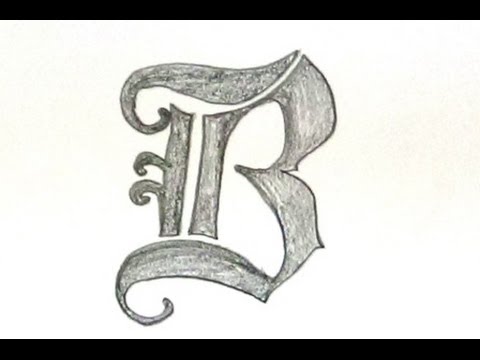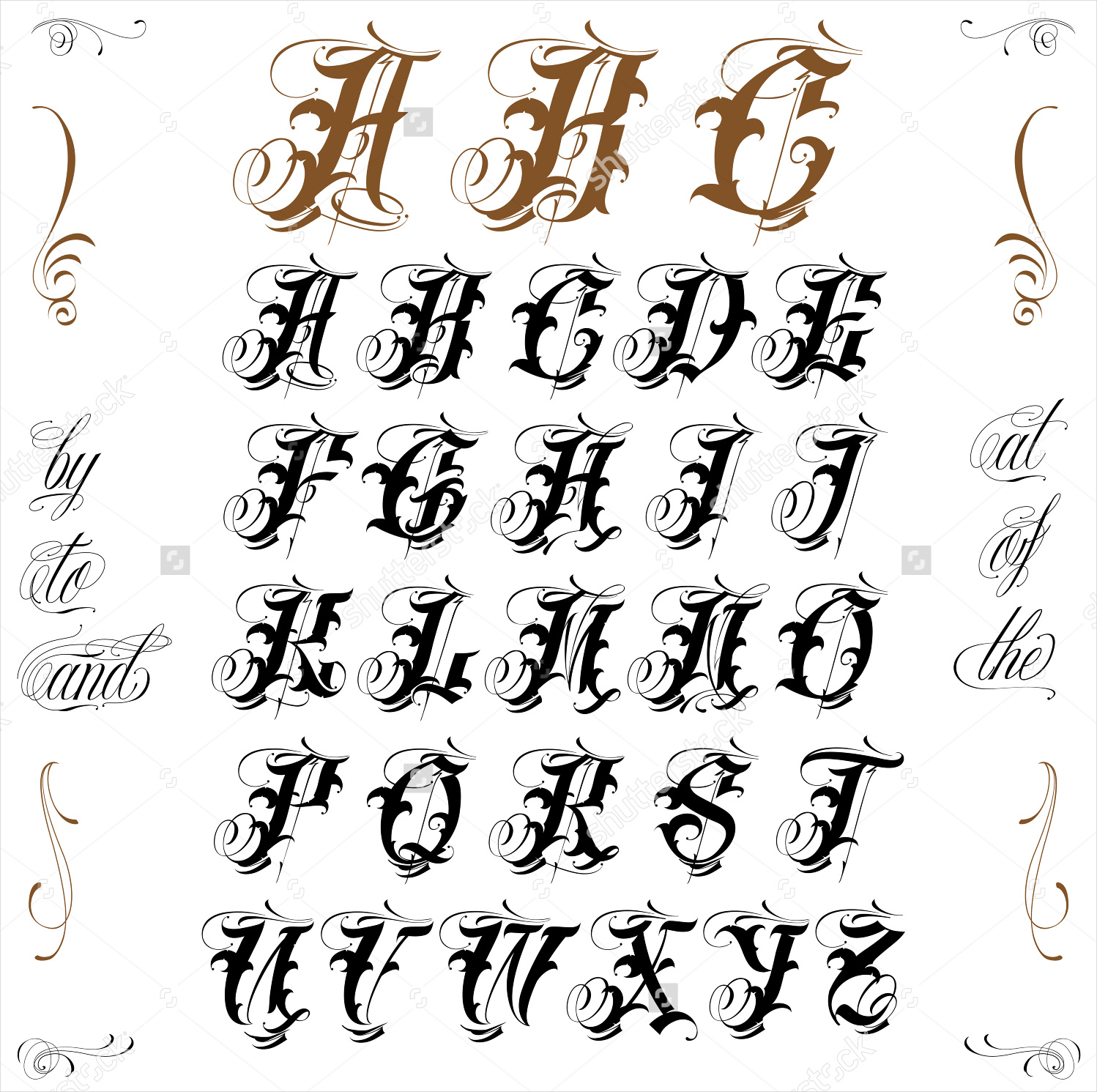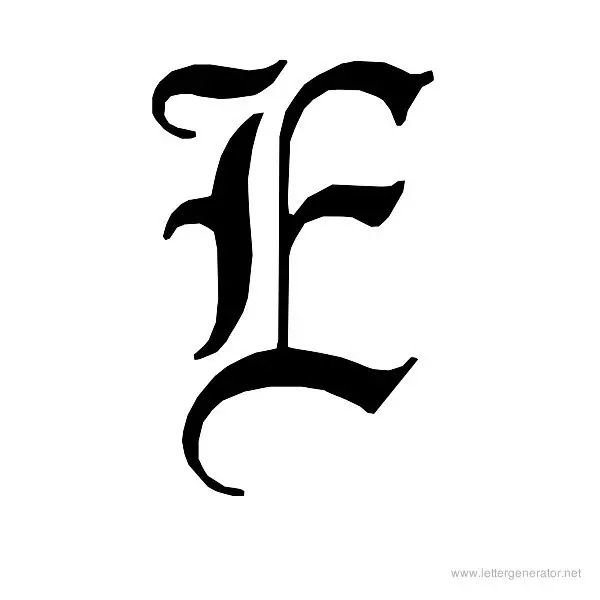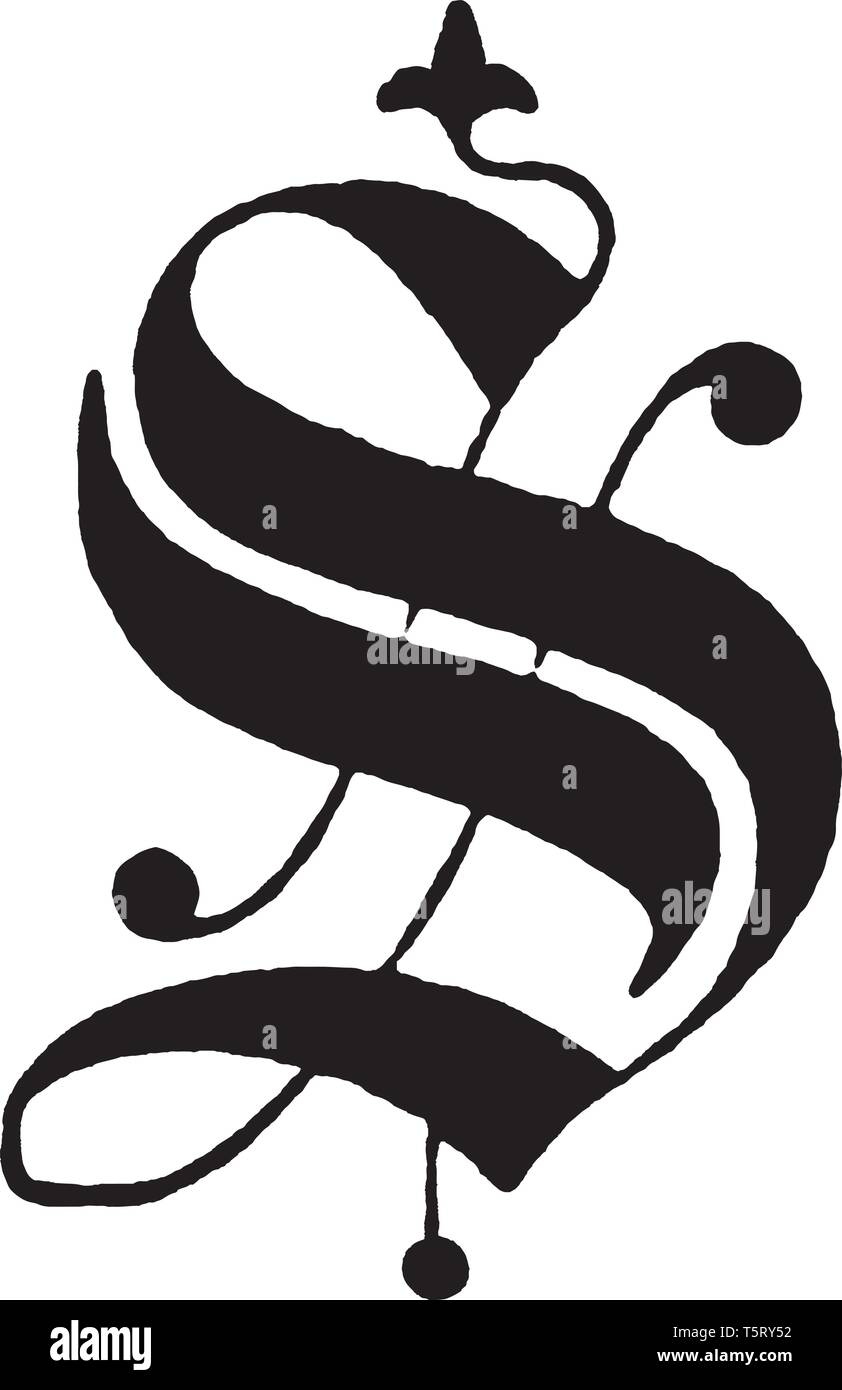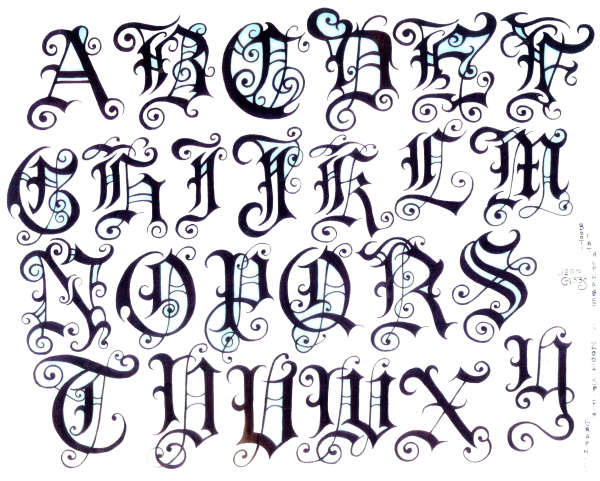
See more ideas about lettering fonts lettering calligraphy fonts. Choose from old english letter themed fonts such as royal font cloister black font fette unz fraktur font dearest font blackletter font anglicantext font english gothic 17th century canterbury font and alte schwabacher font.
Various forms of blackletter exist mainly including Textualis the most calligraphic form of blackletter. See more ideas about lettering alphabet lettering fonts letters. LHF Encore lends itself to designs requiring a formal or professional appearance.
These fancy letters are symbols that exist in the unicode standard but you cant create them using. You can find them all across the web for personal and commercial use form many project types. The various curves and edges of the upper and lower case characters add a vintage feeling among the existing font designs.
The Old English also known as blackletter dates back to 1000 years ago when it was used as a script throughout Western Europe. Download 56 Old English Fonts. About Old English Fonts.
It is also known as Blackletter or medieval calligraphy. A popular script design around 10 centuries old Old English Fonts also known as Black letter has a very distinguished look. We offer fast servers so you can Download Calligraphy Fonts and get to work quickly.
Lovers of beautiful calligraphy and type will especially appreciate this elegant font family. Old English Font The Old English script makes your designs look like they are from the Middle Ages. But there are some very fancy looking variants which are very popular Champignon Cookie Cursif Euphoria Script Freebooter Script and Germanica.